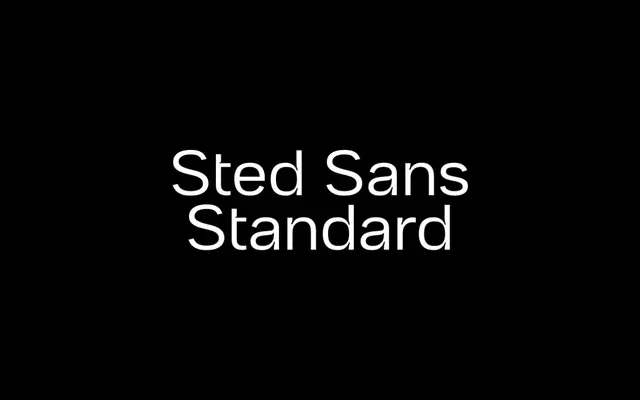
Sted Sans Standard
A contemporary sans drawn from the tradition of 20th-century Danish road signage, available in nine weights with matching italics and a variable font.
Rooted in the typographic heritage of Danish wayfinding, the family takes its name from the Danish word 'stedsans', meaning an intuitive sense of one's surroundings. Nine weights run from Thin to Black with matching italics, totalling 18 styles, and a variable font is included. The family sits within a wider system that includes Sted Sans Narrow and Sted Sans Expanded, with coverage across 216 languages.
Drawn from Danish road signage traditions of the 20th century, the letterforms reflect the humanist conventions of Nordic wayfinding typography rather than a strict geometric or grotesque model.